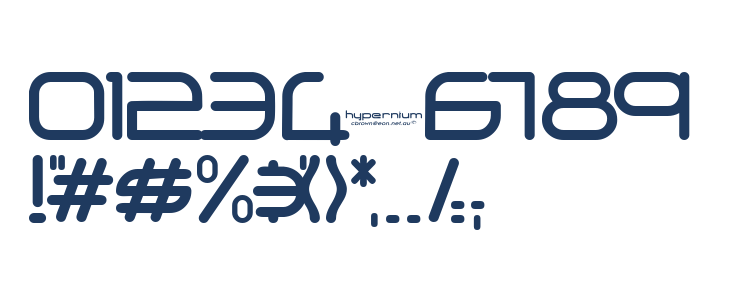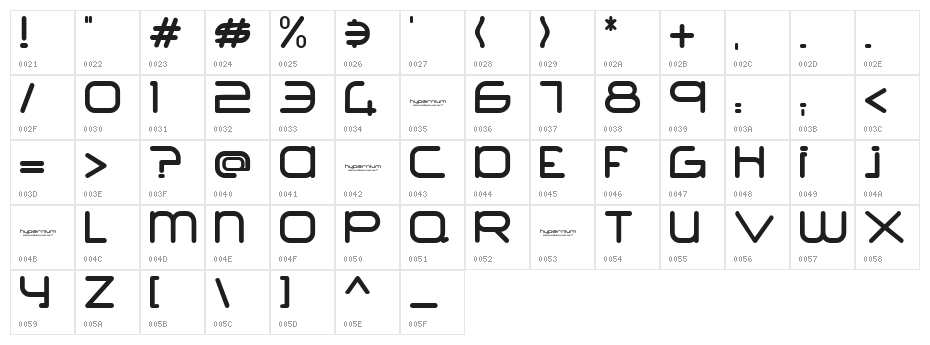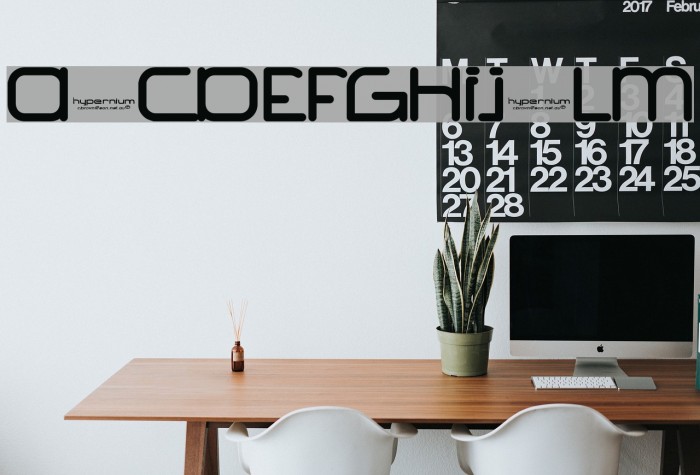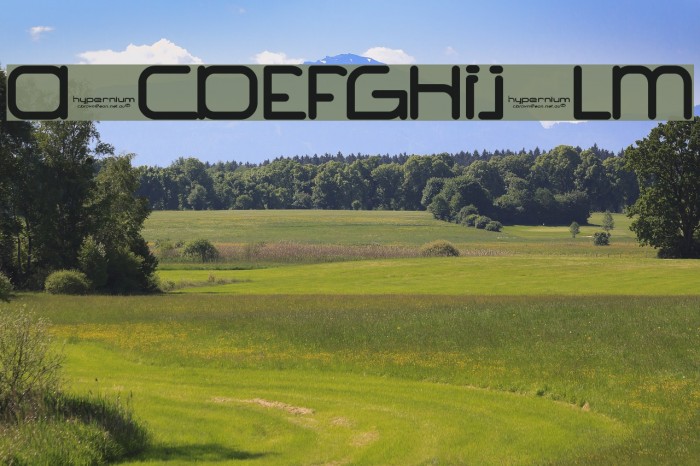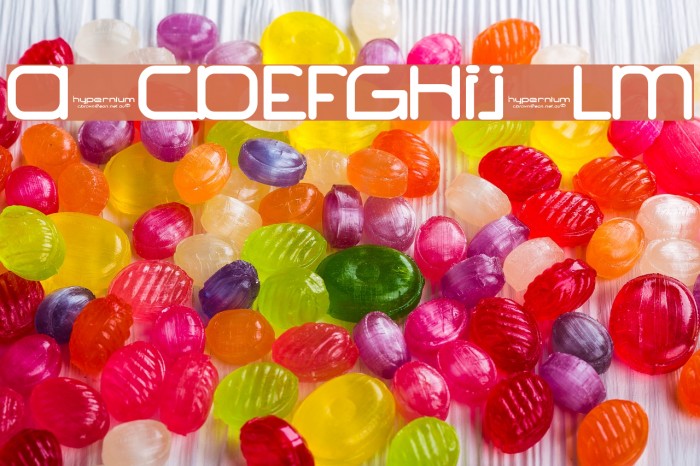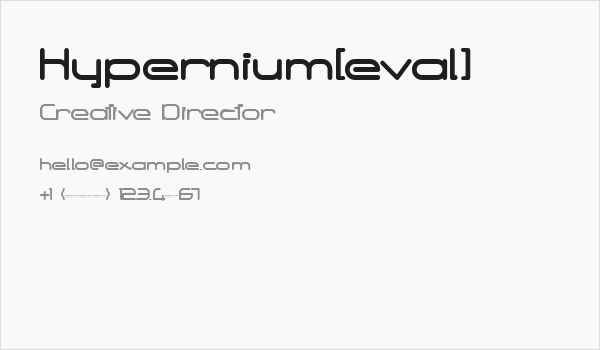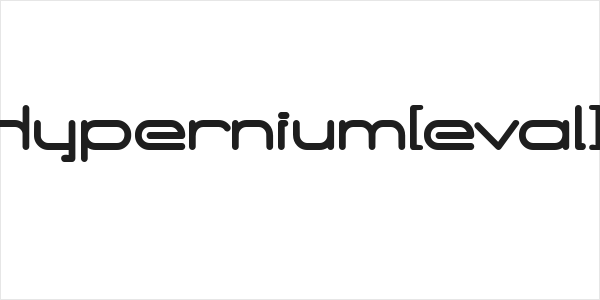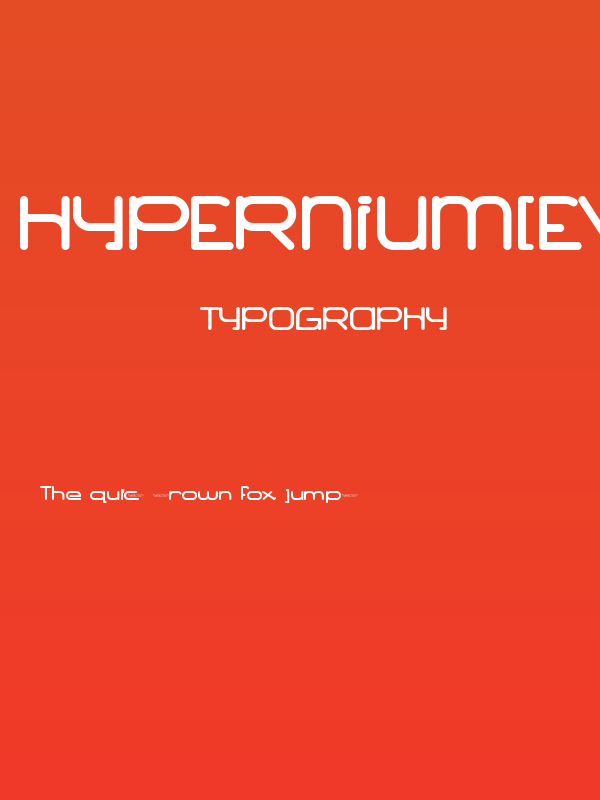
Hypernium[eval] Font
Hypernium[eval] Description
This font features a modern and futuristic design with rounded edges and a sleek, streamlined appearance. The characters are uniform in height, providing a consistent and balanced look across both uppercase and lowercase letters. The numerals and special characters maintain the same stylistic approach, ensuring cohesion throughout. The font's clean lines and geometric shapes make it suitable for contemporary design projects, offering a sense of innovation and forward-thinking. Its unique style stands out, making it ideal for branding, technology-related themes, and creative displays.
Overall StyleFuturistic, Sleek
Use CaseLogos, Headlines, Branding
Proposed ProjectsIdeal for technology branding, futuristic themes, creative displays, and innovative design projects.